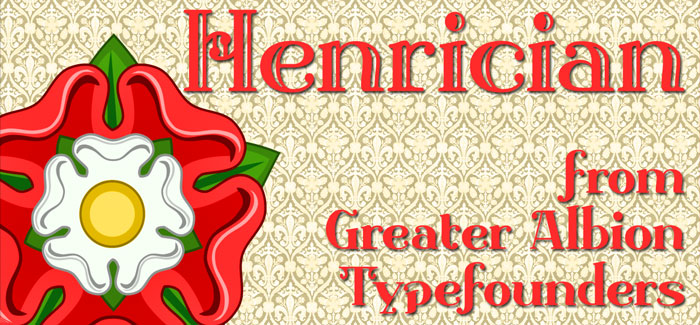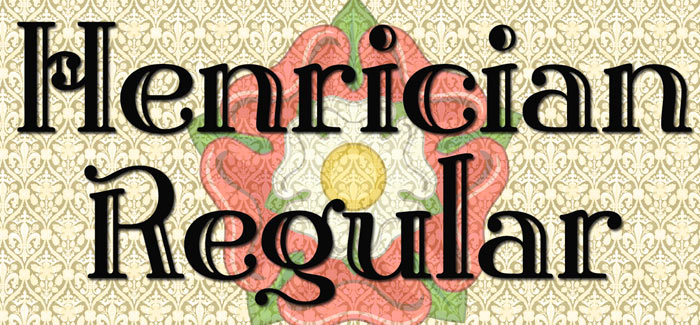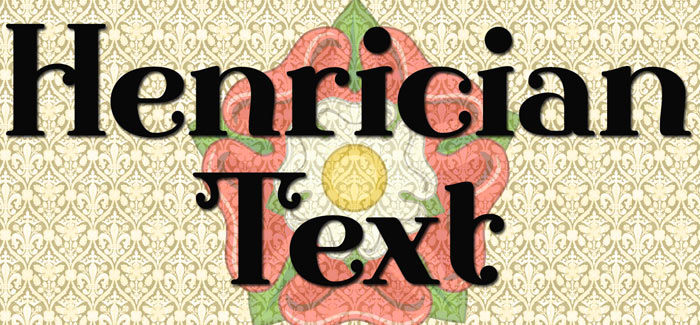
Henrician font
Henrician font can claim two sources of inspiration. One of these was a set of beautiful capital letterforms seen on the cover of a 19th century album of engravings. The engravings contained therein depicted lovely examples of half-timbered Tudor architecture and there was a clear ‘Tudor’ intent behind the letterforms. The second source of inspiration is more conceptual-the title lettering of period films from the 30’s to the 60’s…think if the opening text when Errol Flynn plays Robin Hood, or think of Richard the Lionheart, or even that great comedy Classic ‘Carry on Henry’, and it’s discussion of Sir Thomas de Cobbler….but we digress! Henrician is a set of eight display and text (but perhaps not Body Text) faces in a ‘Tudor Revival’ spirit. Like any good revival design they are somehow at home with a wide range period themed design work, covering the medieval until, perhaps, the 18th century, just so long as we’re more concerned with fun and appearance than strict historical accuracy. The family will be at home in the realms of advertising, posters, cover design and web design.